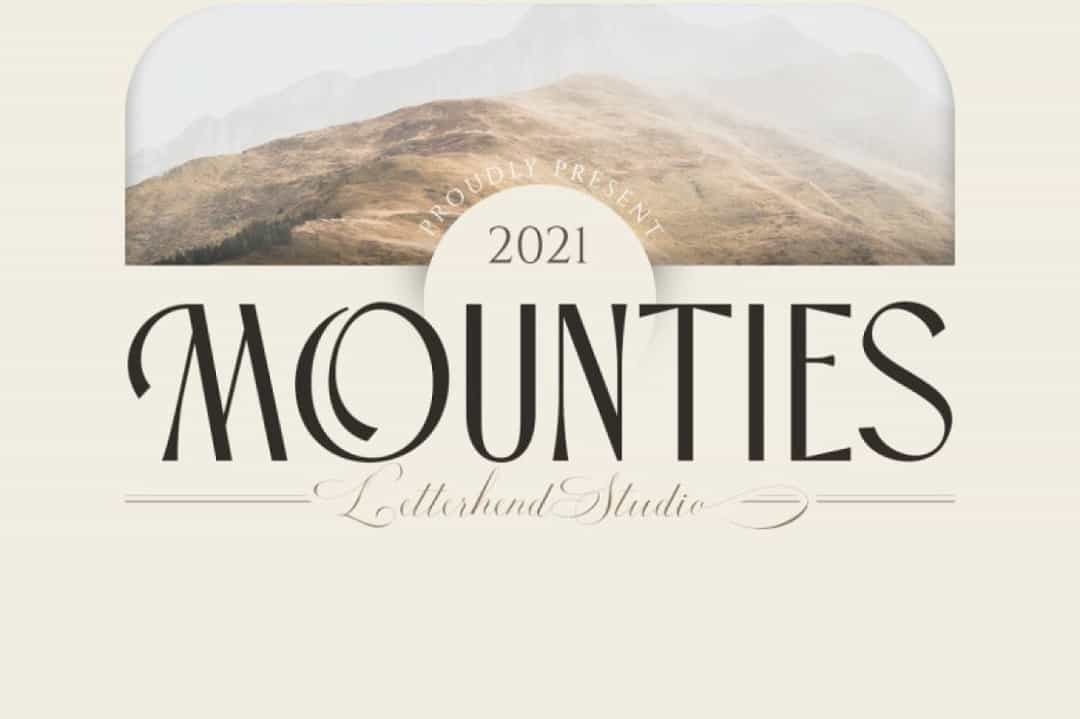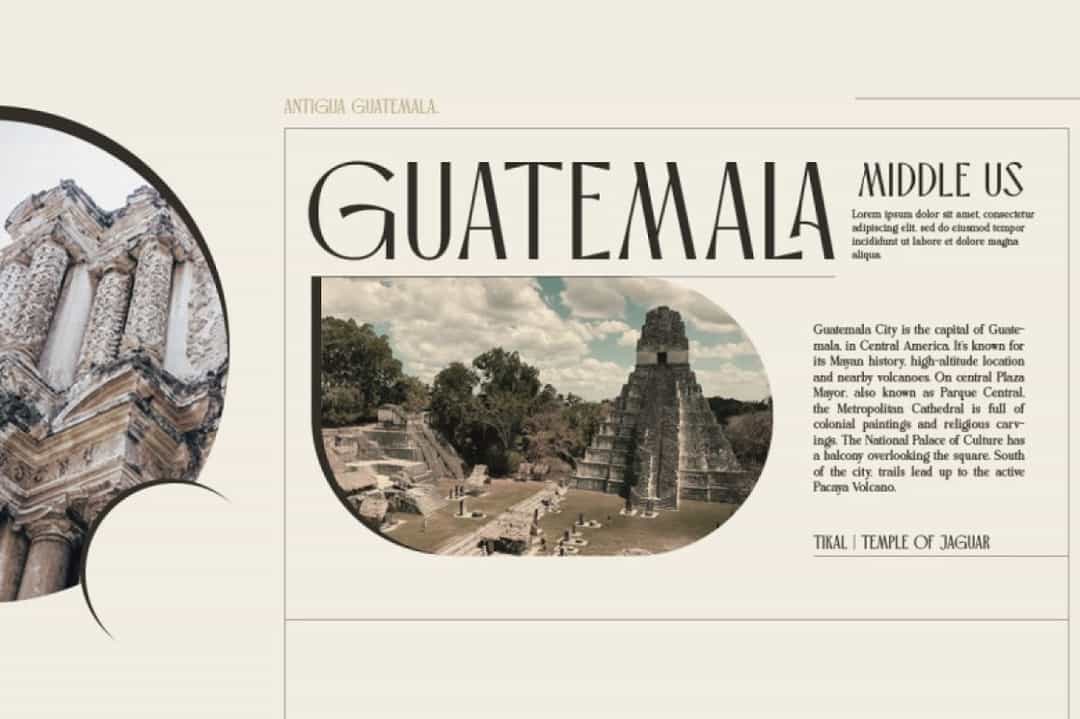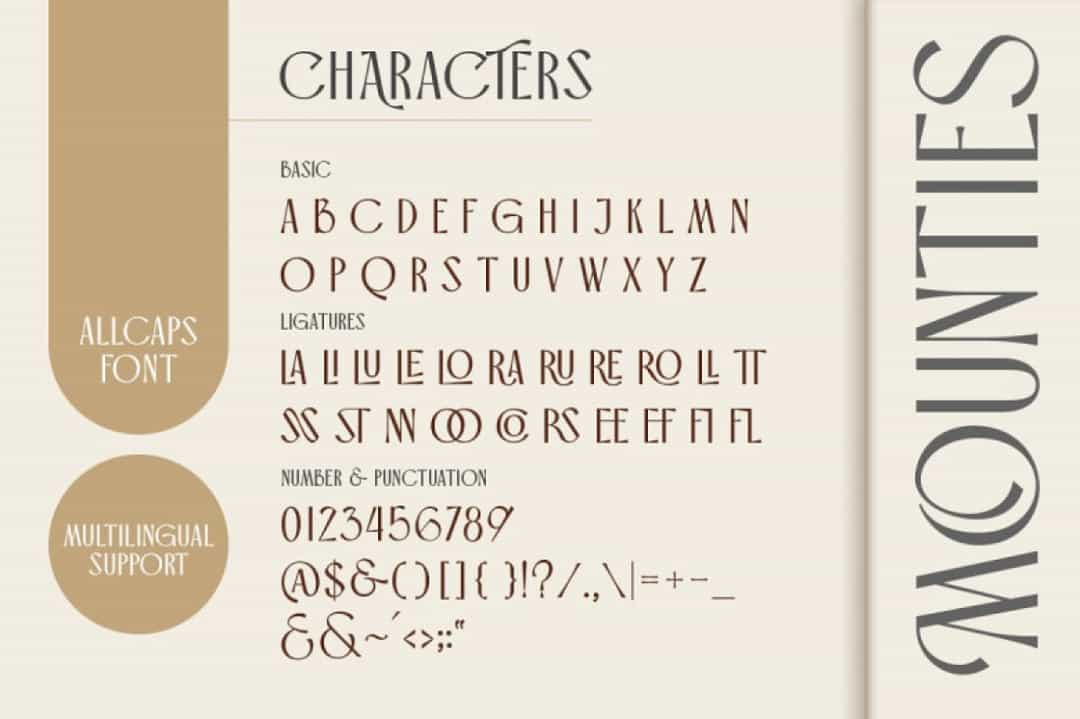
Mounties Display Font is a modern Sans Serif font with neat and elegant letterforms that is ideal for minimalist and modern styles. Additionally, its stylistic ligatures and alternates create an eye-catching design and set it apart from its competitors.